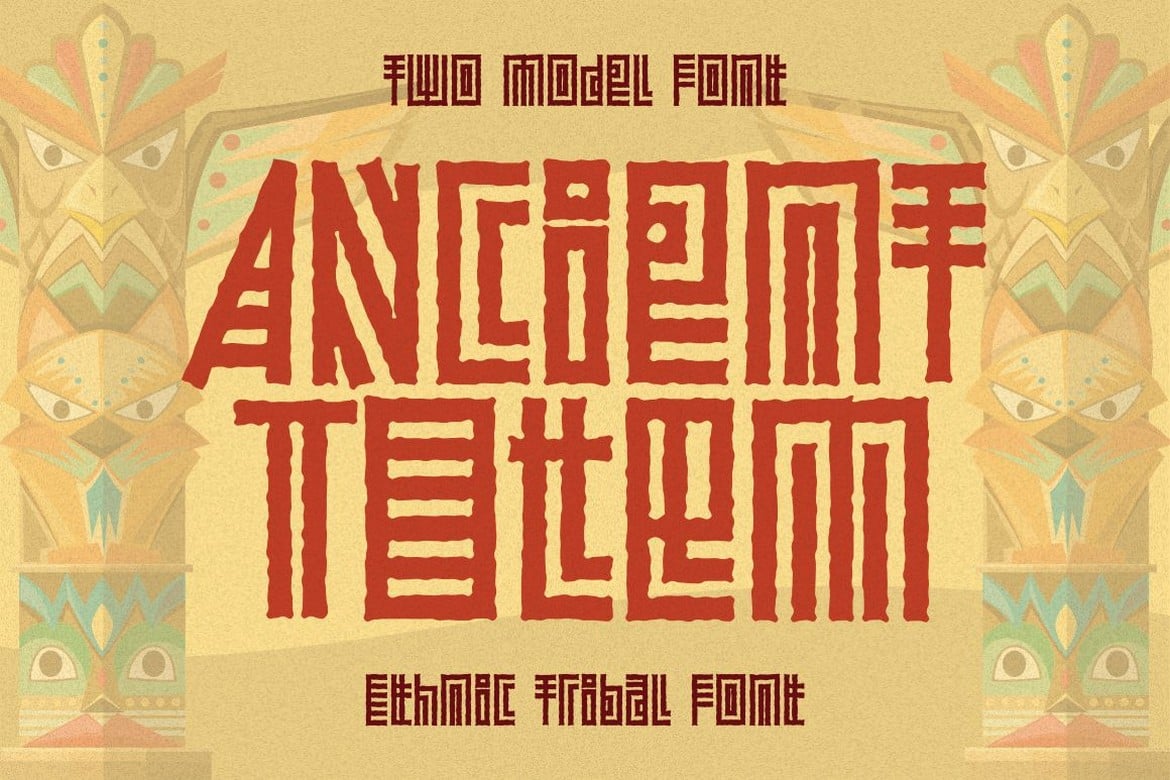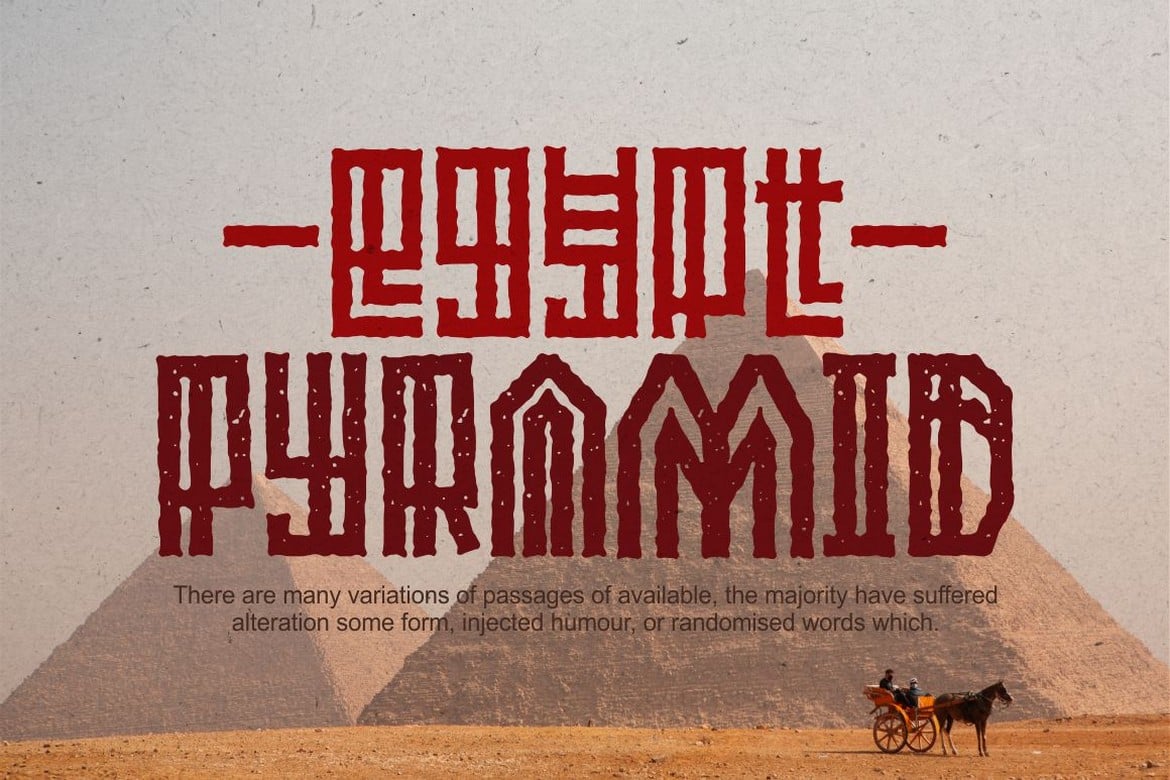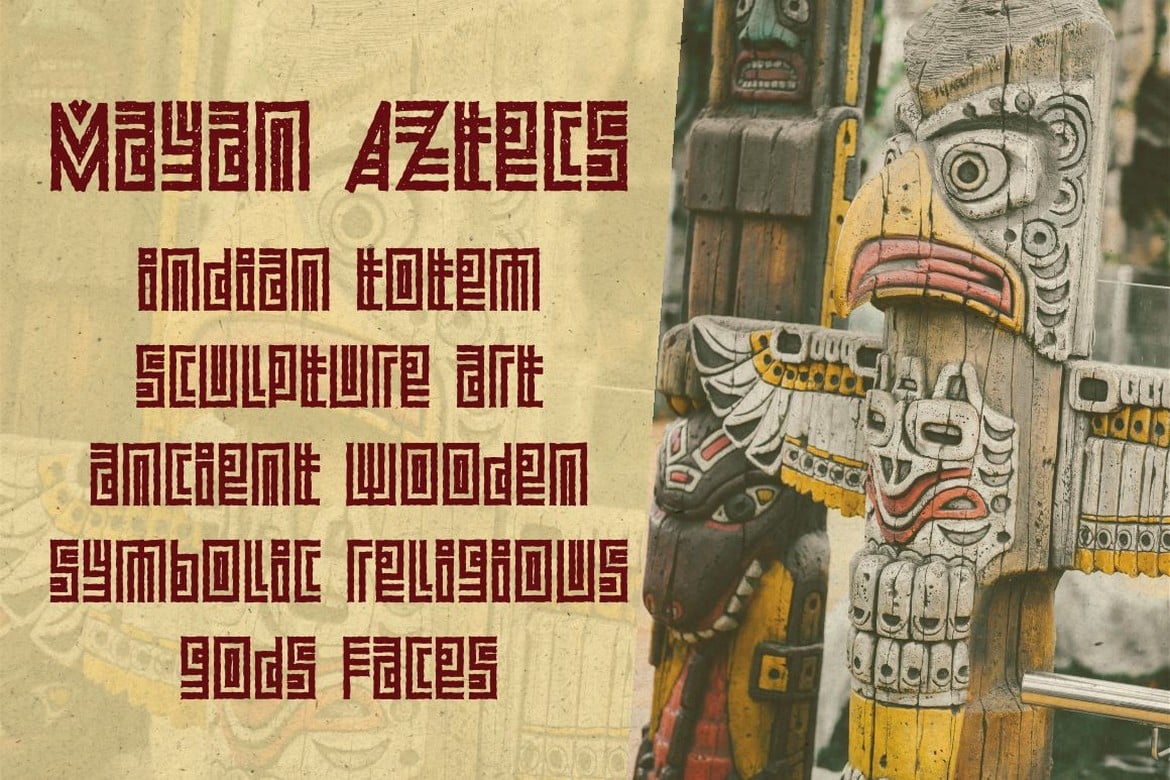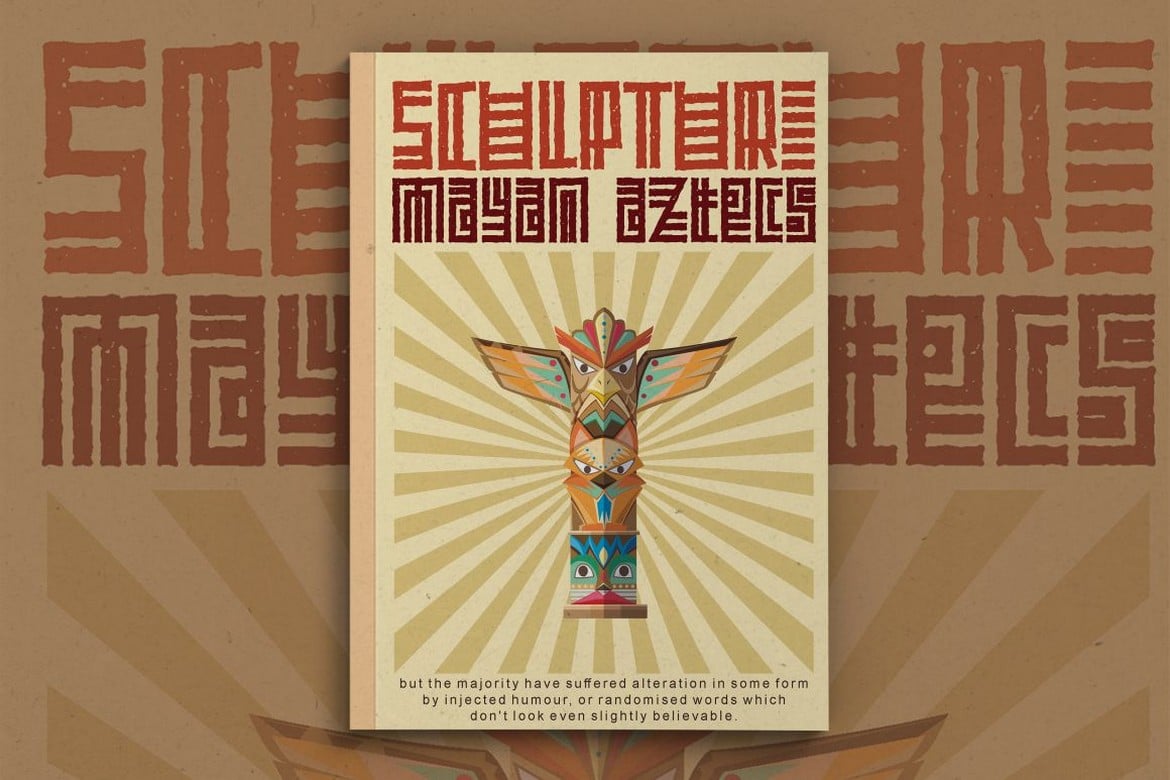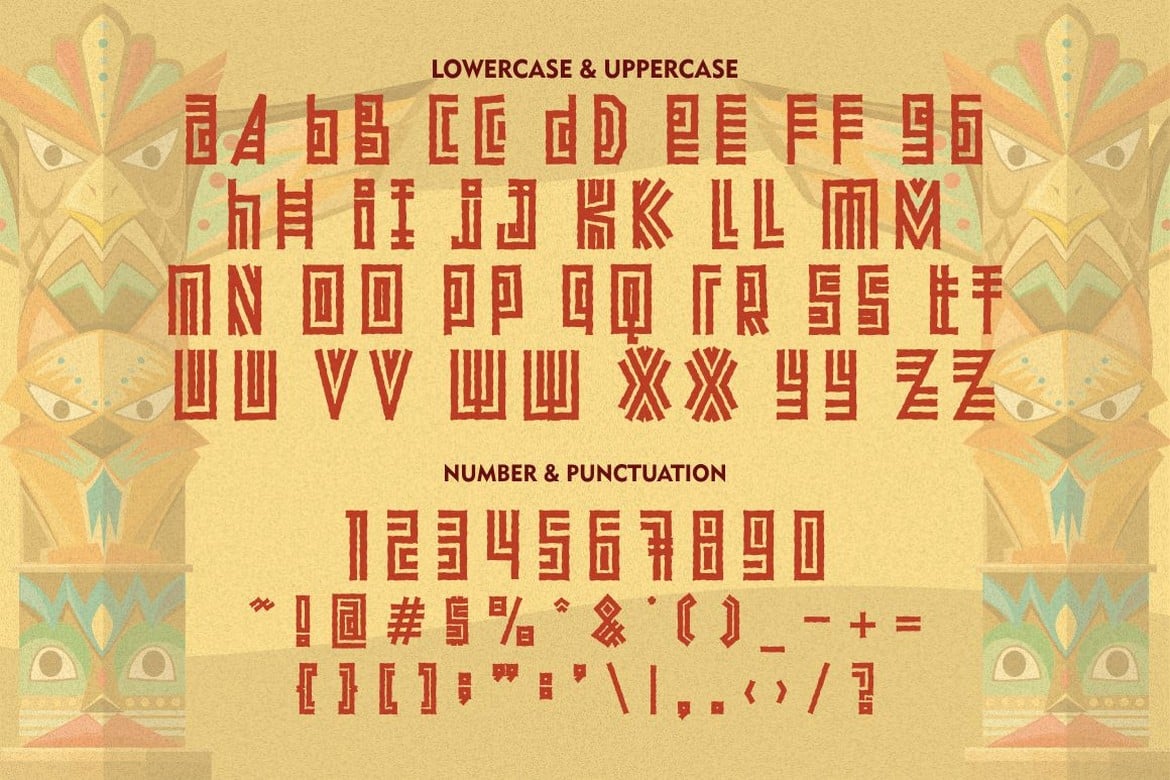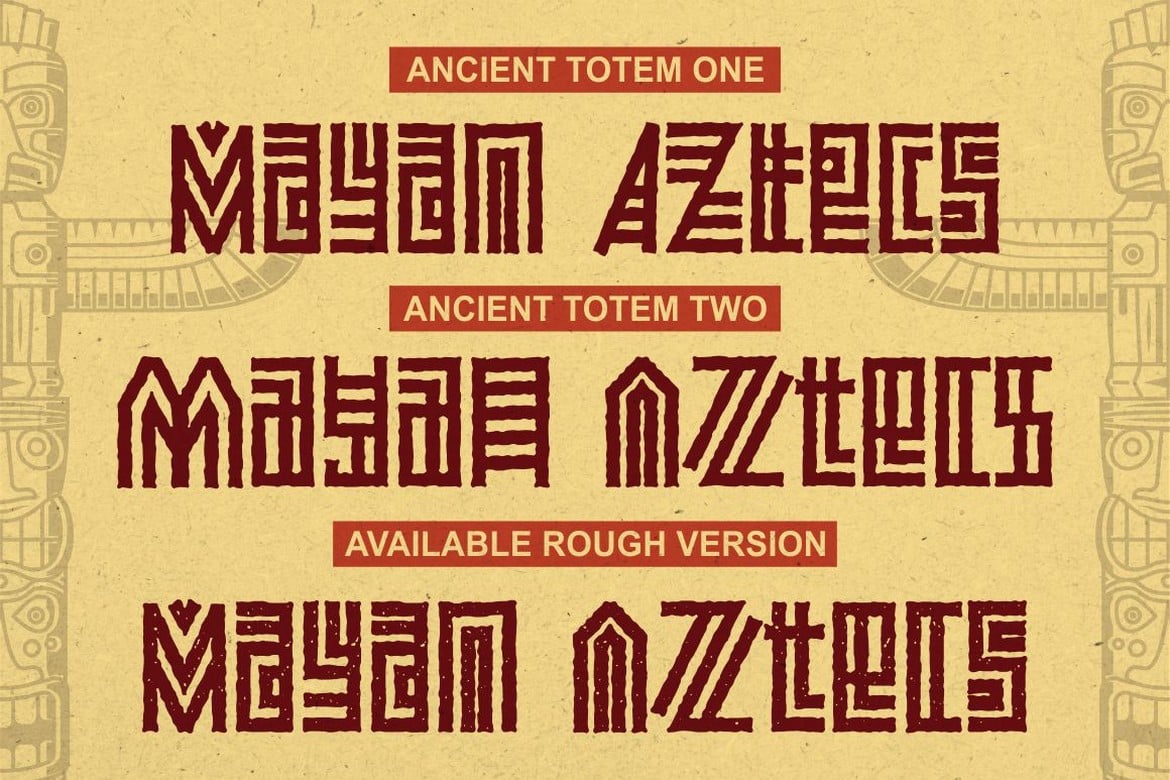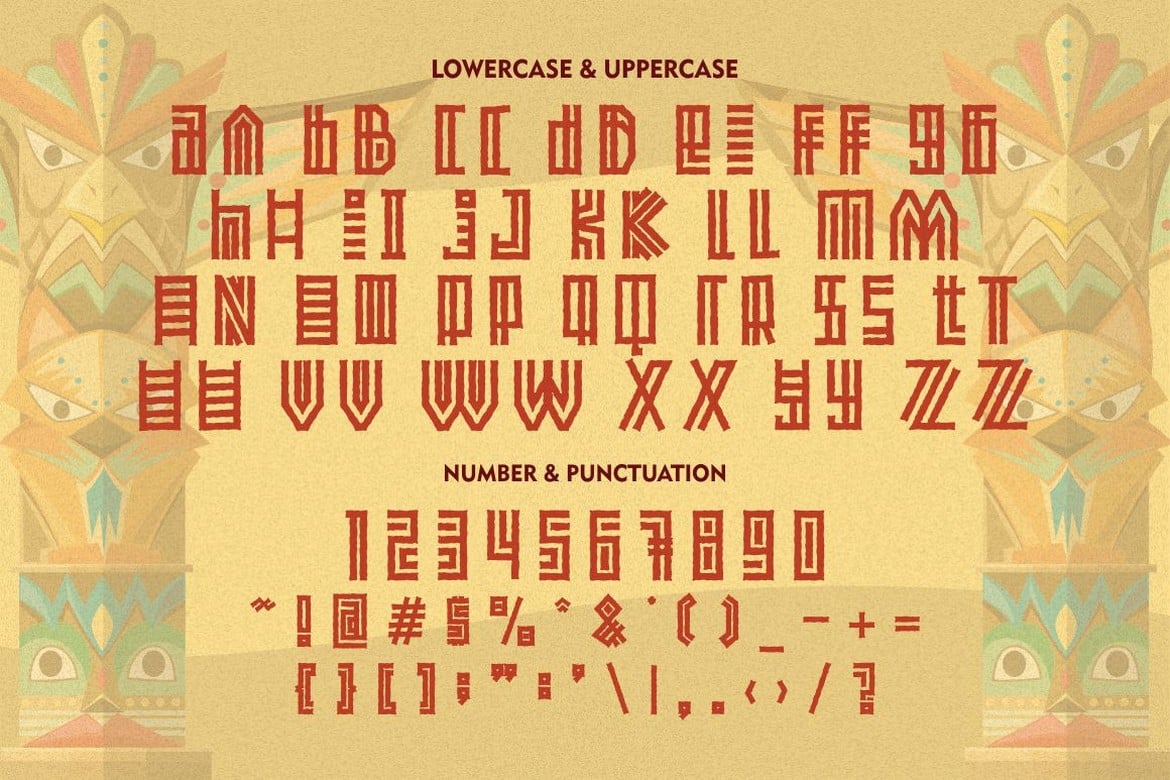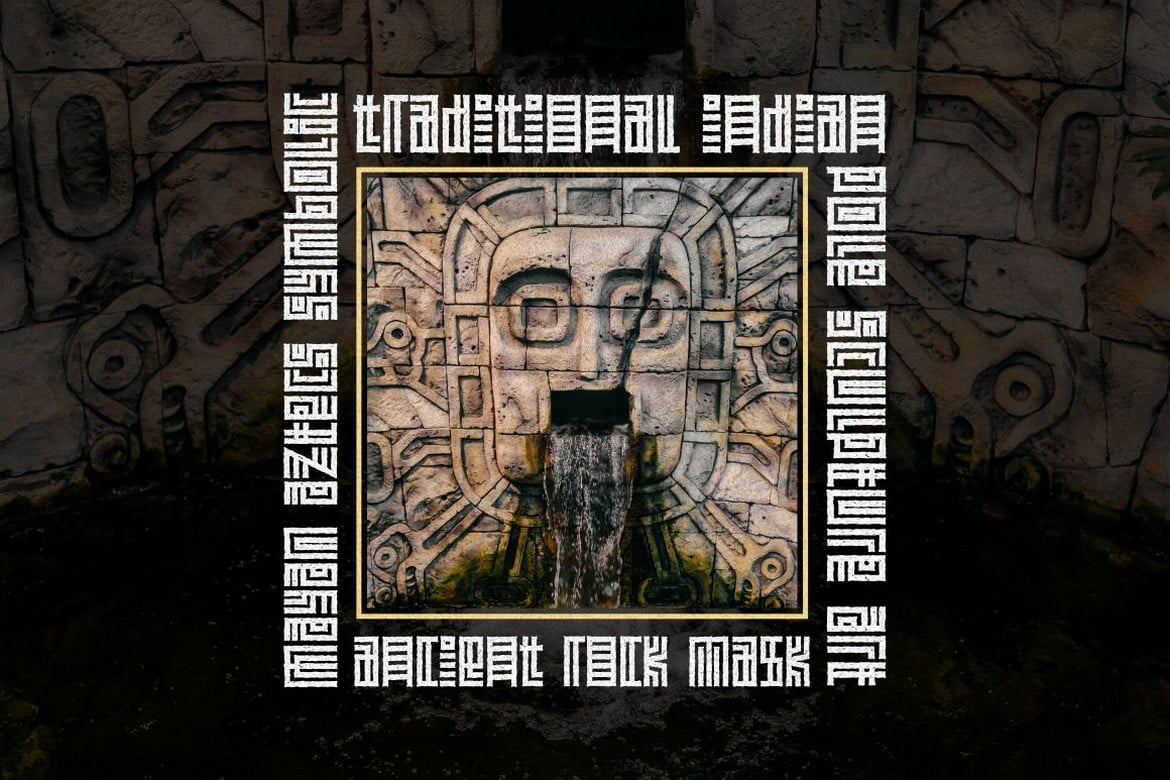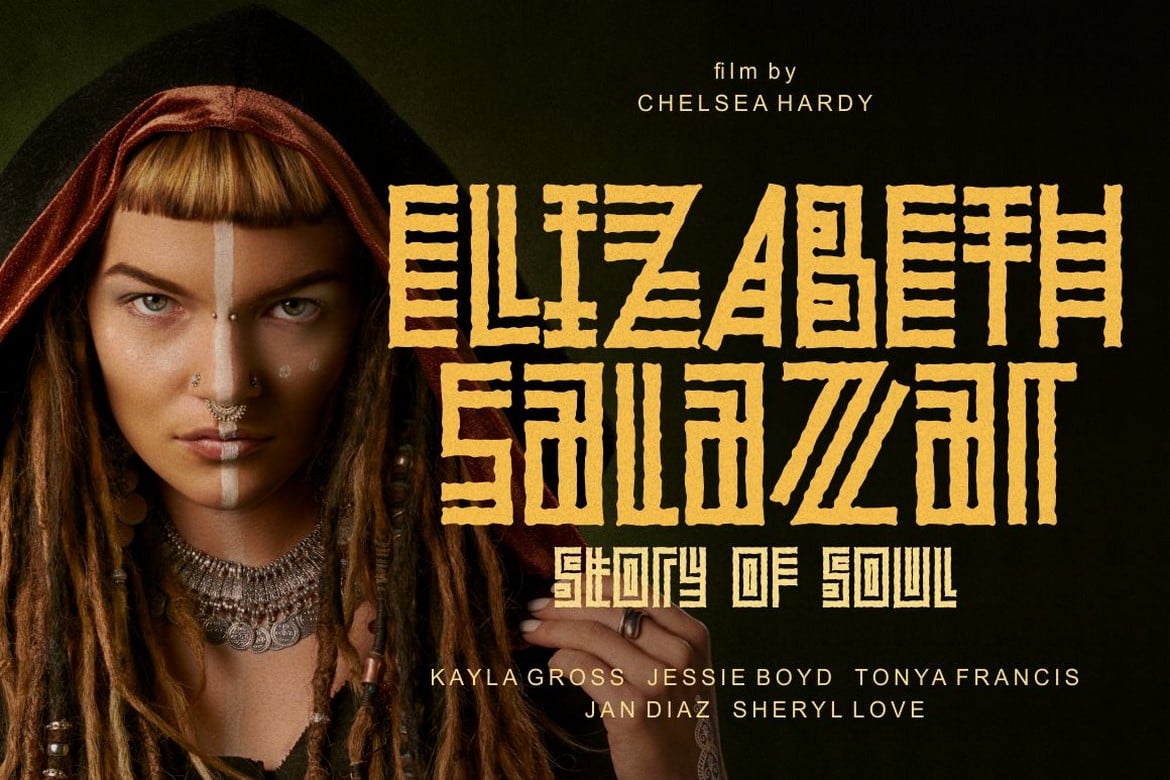
Ancient Totem – Ethnic Tribal Font
Ancient Totem is Ethnic Tribal Font With Two Model Font. Ancient Totem has a fun character and display typeface. Ancient totem is a font inspired by traditional tribal and ethical styles.